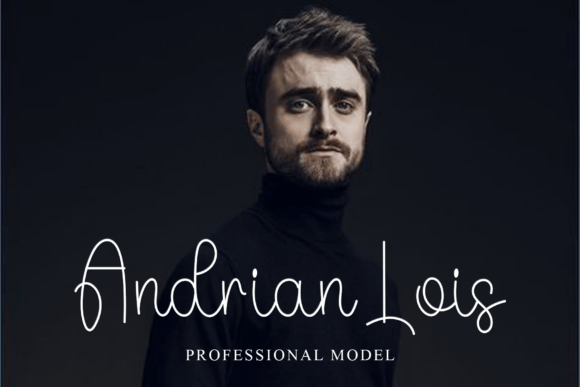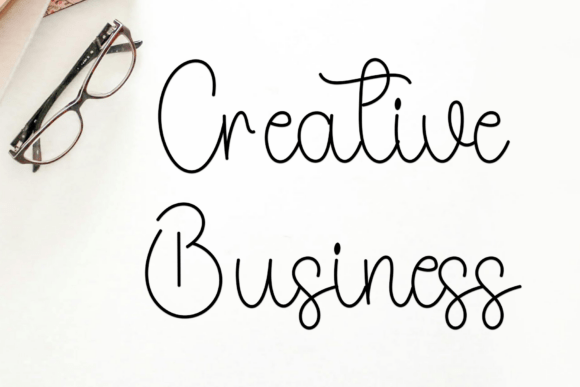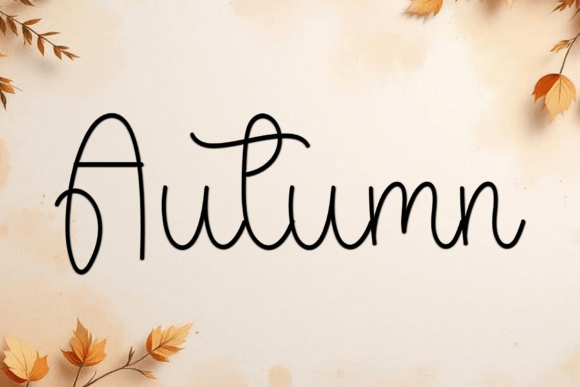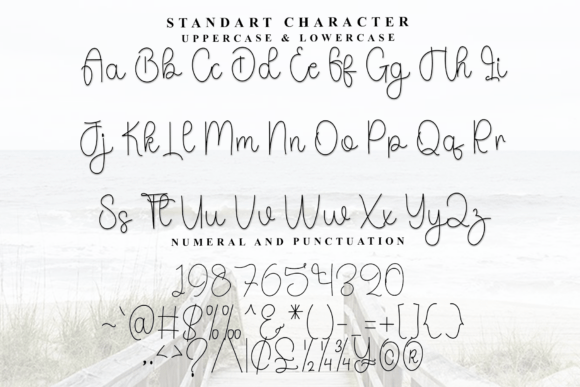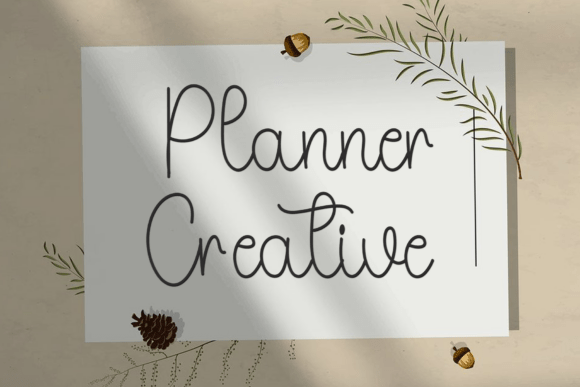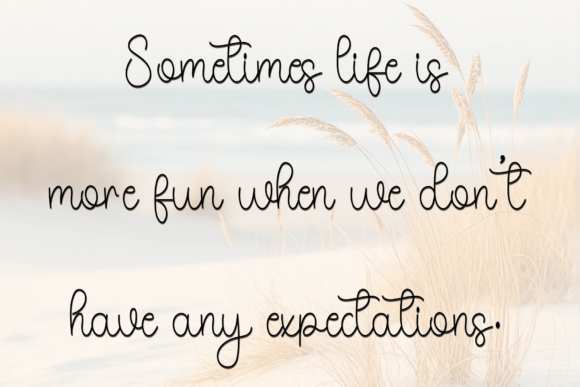
Introduction to Doble Font
Have you ever been in the middle of a creative project, pouring your heart and soul into a design, only to feel like something’s missing? That’s where the right font can make all the difference. As a designer, you know how a single element can elevate your entire project. And that’s exactly what the Doble Font does – it adds a touch of elegance and sophistication to your work.
With its soft, unique strokes and distinctive character, the Doble Font is a valuable resource for any designer. Whether you’re working on a high-quality design project or a simple craft, this font is sure to make your work stand out. Plus, its transparent background makes it easy to integrate into any design, and its compatibility with various applications – including Windows and open-source platforms – means you can use it across different projects and platforms.
Doble Font
- High-quality font with transparent background, perfect for creative projects that require a modern and sleek design.
- Includes a range of characters, including uppercase and lowercase letters, numbers, and special characters.
- Supports various languages, making it a versatile design resource for international creative projects.
- High-resolution font, suitable for use in print and digital applications, including business cards, logos, and graphics.
Honest Review: Doble Font
I recently stumbled upon the Doble Font, a free download that I was excited to try out for my latest creative project. As a designer, I’m always on the lookout for high-quality fonts that can elevate my designs.
Here’s what I liked about the Doble Font:
- ✨ The font has a clean and modern design that works well for both digital and print materials.
- ✨ The font is highly versatile and can be used for a wide range of creative projects.
Overall, I was impressed with the Doble Font and would recommend it to designers looking for a high-quality, free font to add to their design resource library. It’s a great addition to any creative project and can help take designs to the next level.
Doble Font
What is Doble Font?
Doble Font is a high-quality design resource perfect for any creative project. It’s a free download that can be used in a variety of applications.
Common Use Cases for Doble Font
Doble Font is perfect for any creative project that requires a high-quality, transparent background font.
Common use cases include:
1. Logo design.
2. Infographic design.
3. Brochure design.
Tips for Getting the Most Out of Doble Font
To get the most out of Doble Font, follow these tips:
1. Use it in combination with other high-quality design resources.
2. Experiment with different font sizes and styles.